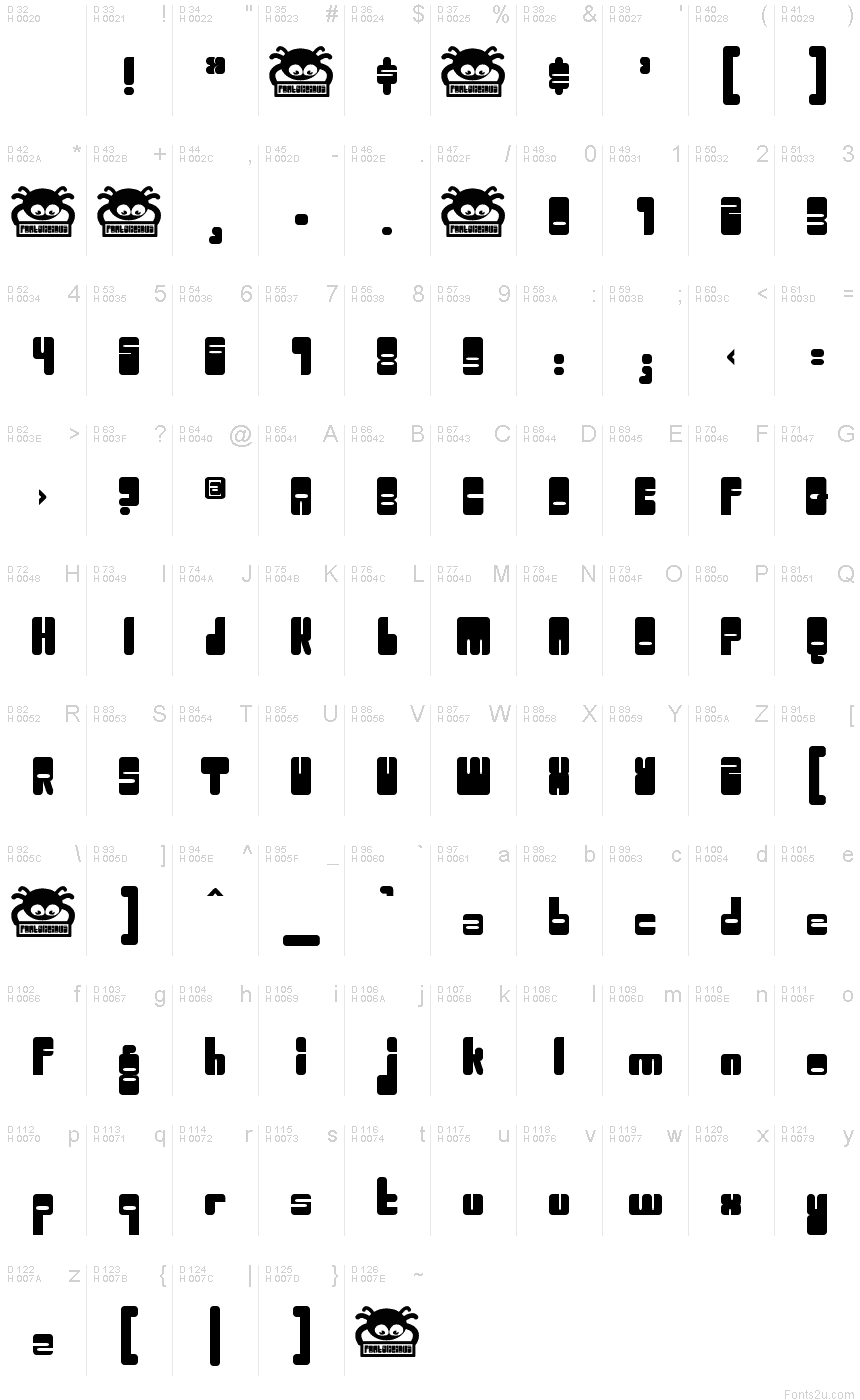
Toggle by Font"a"licious Fonts is a free retro-groovy display font with a chunky, soft-edged bounce. The letters feel inflated and low-slung, with heavy rounded forms, short connections, and little cut-in openings that give the whole wordmark a toy-like, late-1990s pop mood.
It fits posters, club flyers, record sleeves, logo sketches, and playful packaging where the letterforms can do most of the talking. As a free font, Toggle also makes sense for short web headers, title cards, and splashy cover lines, especially when you want that blobby, compact rhythm to carry a simple phrase.